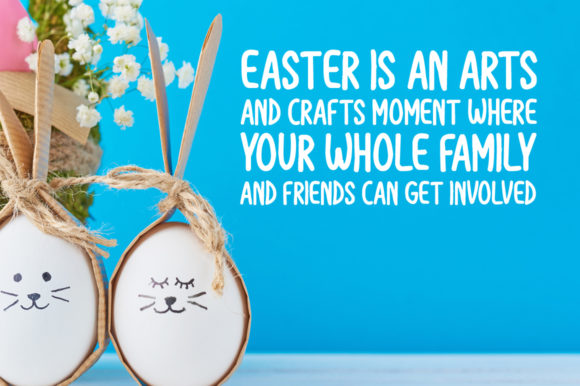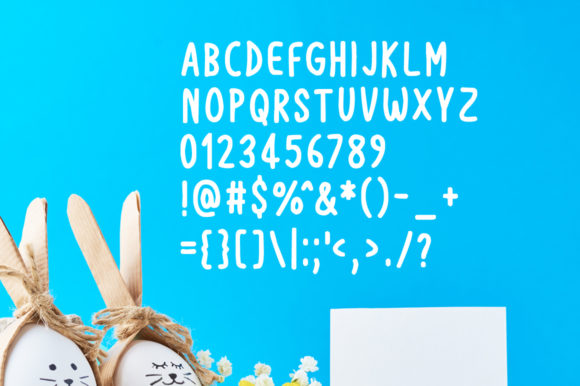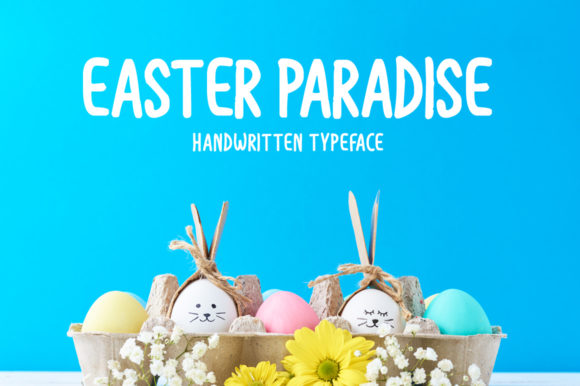
Easter Paradise Font: Elevate Your Designs with a Touch of Whimsy
Are you on the hunt for a font that exudes a carefree and playful vibe? Look no further than Easter Paradise Font, a bold display font that’s sure to become a staple in your design arsenal. With its handcrafted charm and effortless readability, Easter Paradise is the perfect choice for designers and crafters seeking to add a dash of whimsy to their projects.
The Allure of Easter Paradise Font
Easter Paradise Font boasts a unique blend of casual elegance and down-to-earth charm, making it an incredibly versatile typographic solution. Its bold, eye-catching design ensures that it will stand out against busy backgrounds or shine as a standalone headline. Whether you’re working on a festive Easter-themed project or simply seeking a font that can add a touch of personality to your designs, Easter Paradise is an exceptional choice.
Key Features of Easter Paradise Font
- Bold Display Font: Easter Paradise Font is designed to make a statement, with a bold and attention-grabbing style that’s perfect for headlines, titles, and other display text.
- Handcrafted with Love: This font is carefully crafted with attention to detail, giving it a unique and personal touch that’s hard to find in digital fonts.
- Casual Charm: Easter Paradise Font exudes a carefree and playful vibe, making it perfect for designs that require a touch of whimsy and personality.
- Readability: Despite its bold design, Easter Paradise Font is remarkably readable, even at smaller sizes or on busy backgrounds.
- Versatility: This font is incredibly versatile, suitable for a wide range of design applications, from Easter-themed projects to everyday designs that require a dash of personality.
Design Applications for Easter Paradise Font
Easter Paradise Font is an excellent choice for a variety of design projects, including:
- Easter-themed designs: From Easter egg hunt posters to holiday greeting cards, Easter Paradise Font is the perfect choice for adding a touch of festive flair to your designs.
- Headlines and titles: With its bold and attention-grabbing design, Easter Paradise Font is ideal for headlines, titles, and other display text.
- Signs and posters: This font is well-suited for signs and posters that require a bold and eye-catching design.
- Social media graphics: Easter Paradise Font can add a touch of personality and whimsy to your social media graphics, from Facebook posts to Instagram stories.
Why Choose Easter Paradise Font?
With so many fonts available, why choose Easter Paradise Font? Here are just a few reasons why designers and crafters are falling in love with this exceptional typographic solution:
- Unique design: Easter Paradise Font boasts a unique and eye-catching design that’s sure to set your designs apart.
- Easy to use: This font is remarkably easy to use, even for designers who are new to working with digital fonts.
- High-quality: Easter Paradise Font is a high-quality font that’s designed to deliver exceptional results, even at large sizes.
Easter Paradise Font is a bold and beautiful display font that’s sure to become a favorite among designers and crafters. With its handcrafted charm, casual elegance, and effortless readability, this font is perfect for adding a touch of whimsy and personality to your designs. Whether you’re working on Easter-themed projects or everyday designs that require a dash of flair, Easter Paradise Font is an exceptional choice. So why wait? Download Easter Paradise Font today and elevate your designs to new heights!